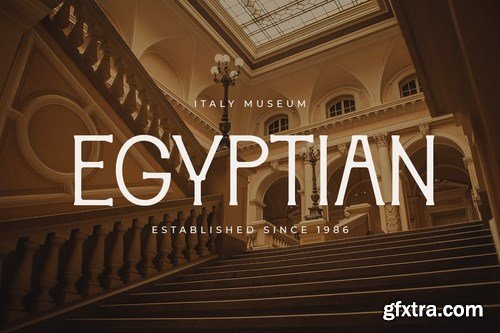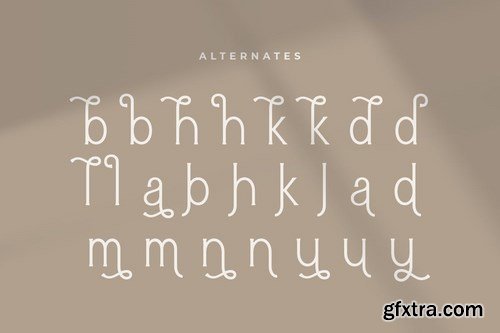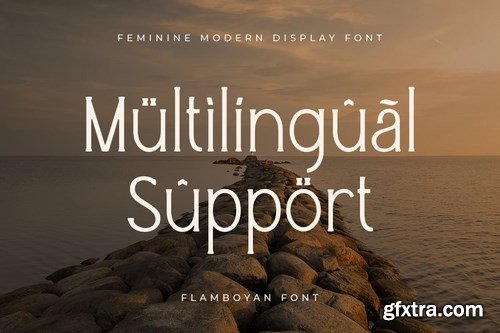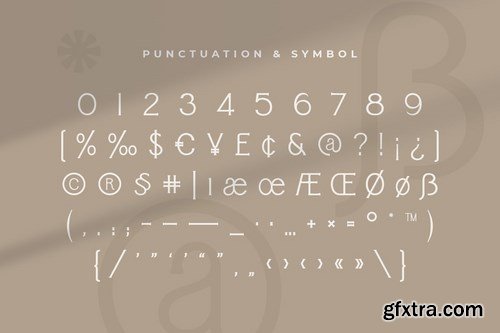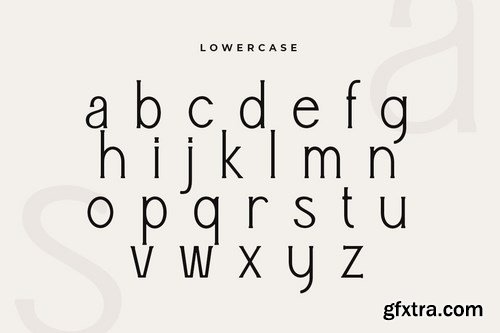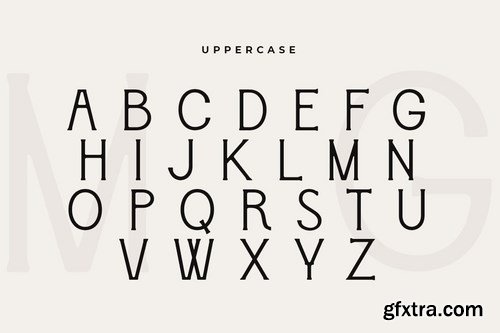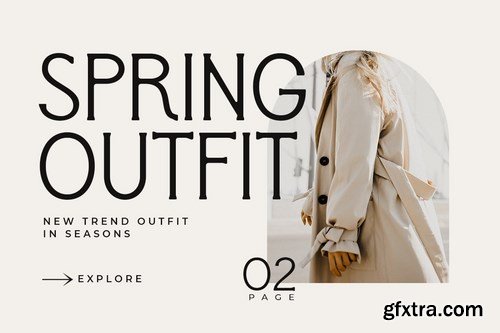
An unique font for unique feminine branding needs, with extra alternates in unique shape will be ready to add value of your brand. It so nice to leverage designer or product owner that need solutions to make their design look more unique and modern. And specially for this font, We prepared any alternate characters to help you create unlimited variations for your creative needs.